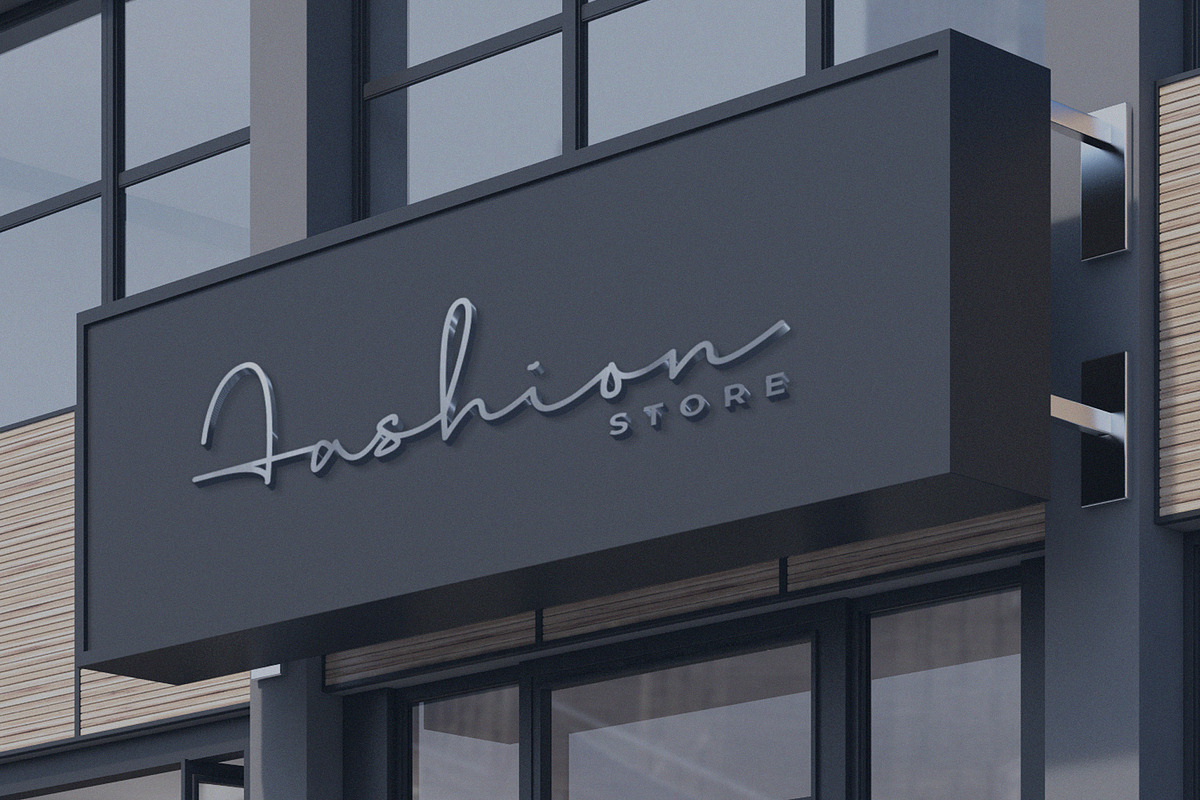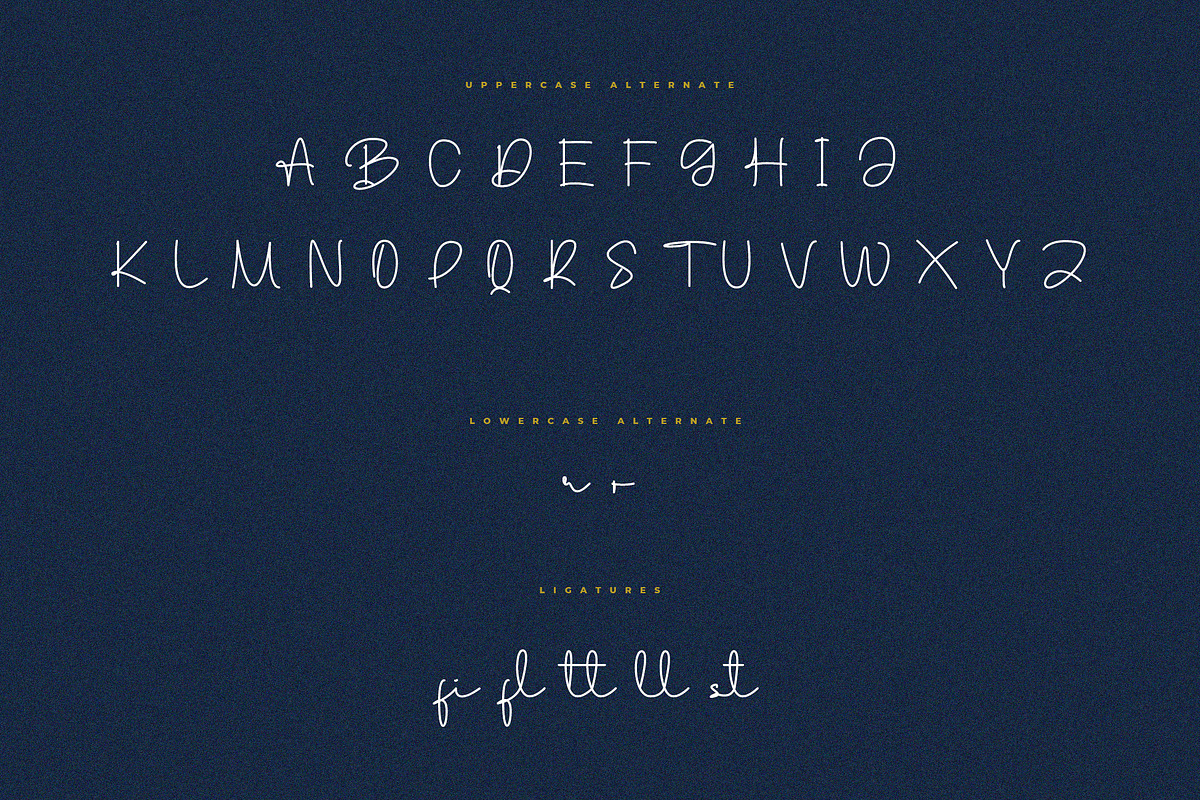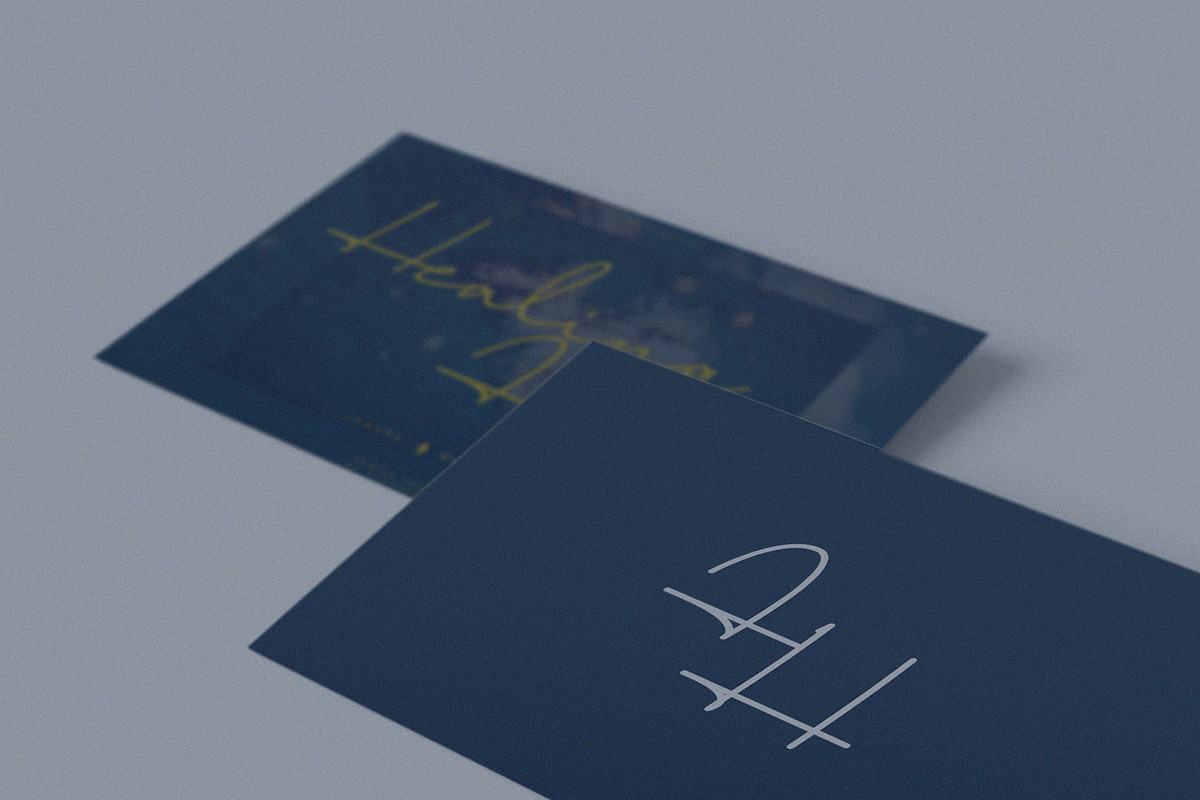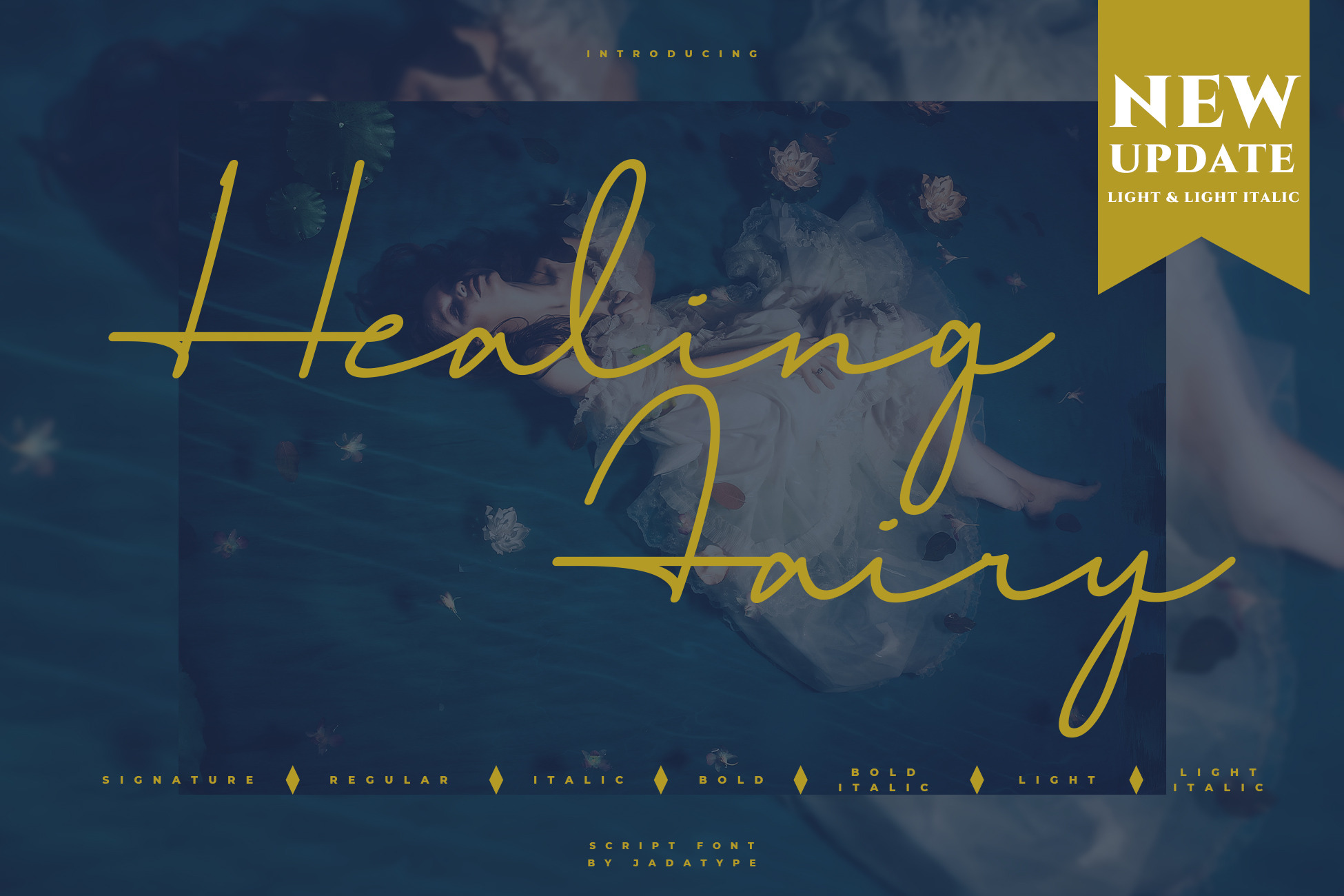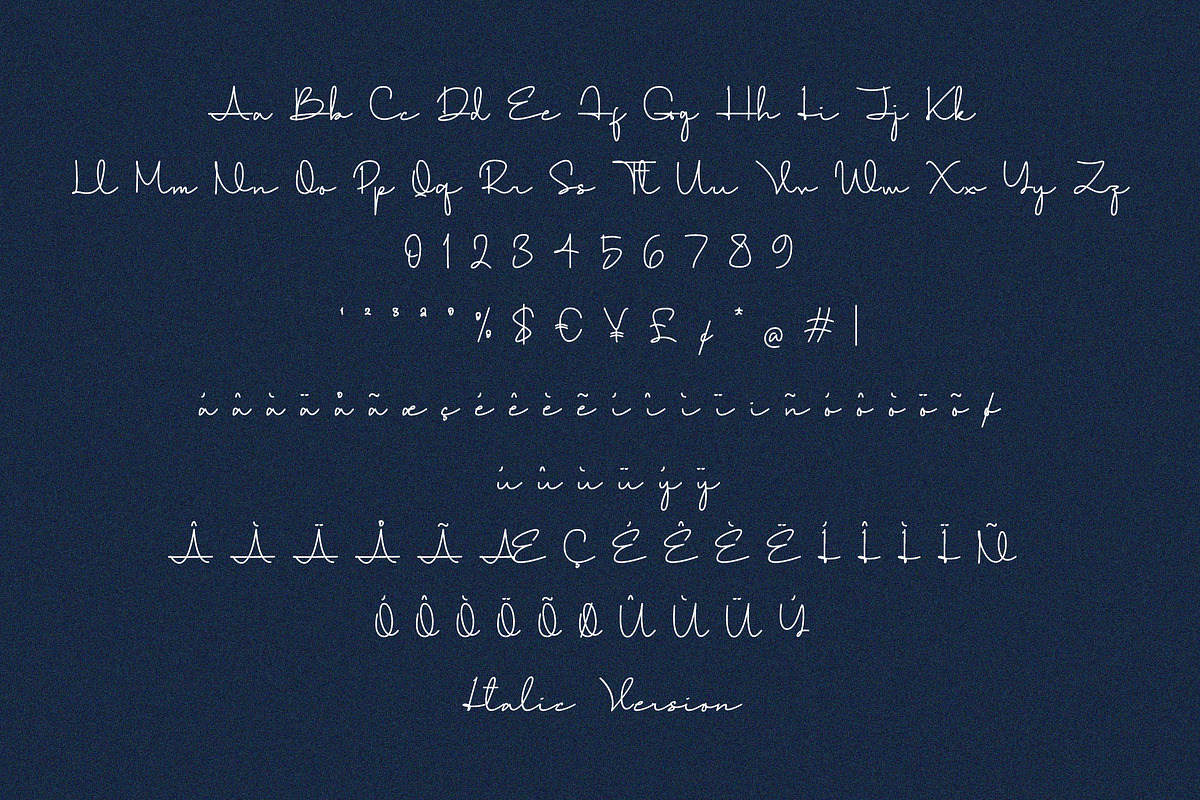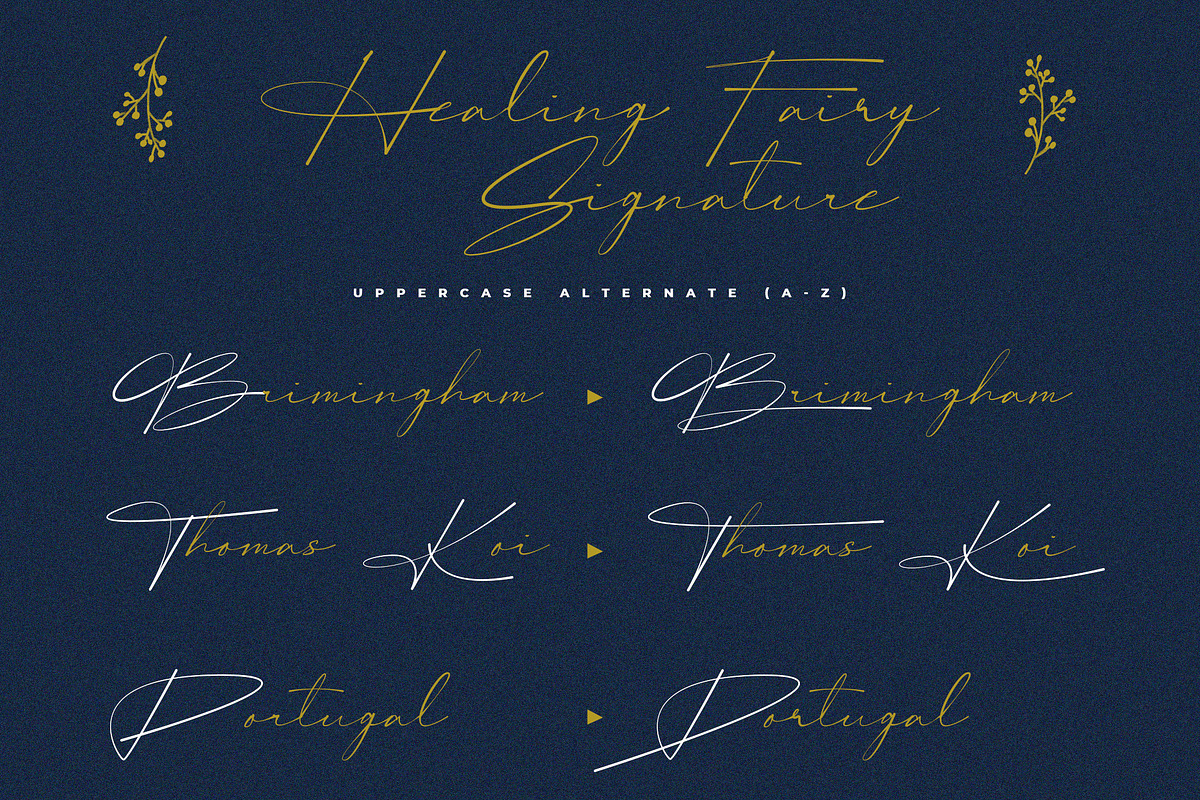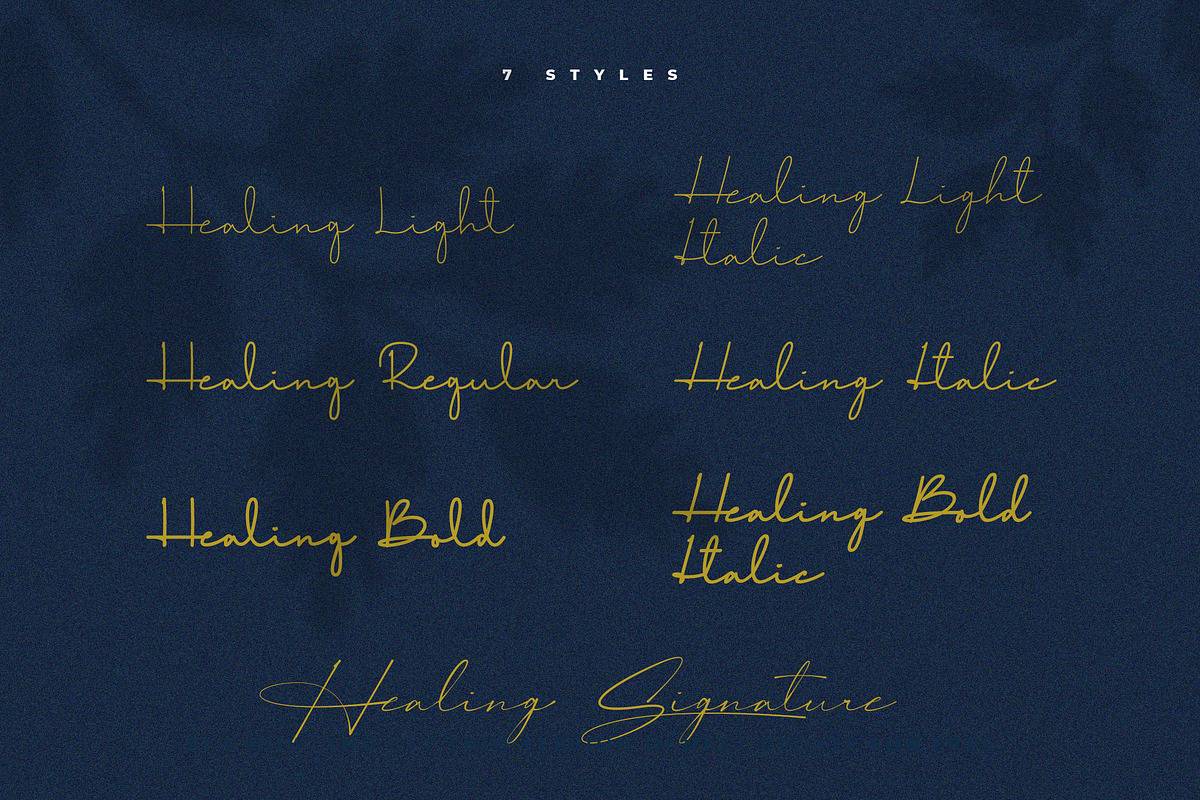
Healing Fairy Font | 7 Fonts
Healing Fairy is a font with a stylish signature style. suitable for logotype, social media, products, advertisements, and so on. contains standard English letters, numbers, punctuation, and several accents that support multilingualism.
- Regular, Italic, Light, Light Italic, Bold, Bold Italic & Signature Version